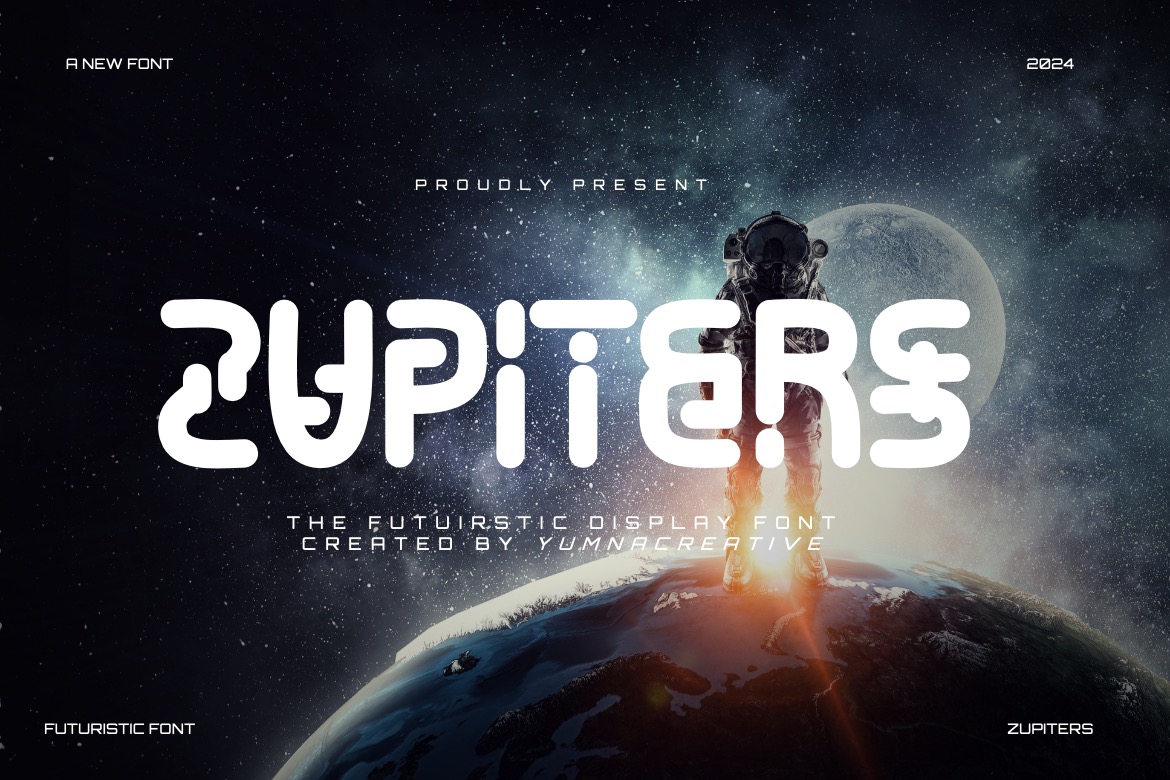
- Zupiters – Futuristic Display Font
Introducing **Zupiters – Futuristic Display Font**
This Font is a delicate, elegant and flowing handwritten font. It has beautiful and well as a unique blend of ligatures a letter, so that the authors compose it with a and little swirly embedding, so that a modern font is formed and ready to make a statement by adding elegant and unique flair to your next design project. Add it to your most creative ideas and notice how it makes them come alive!